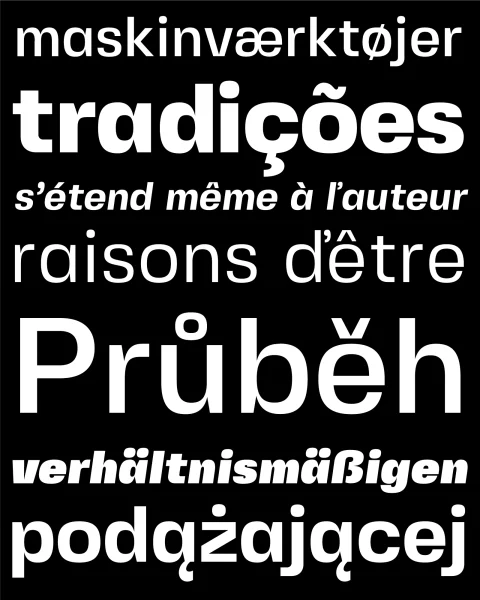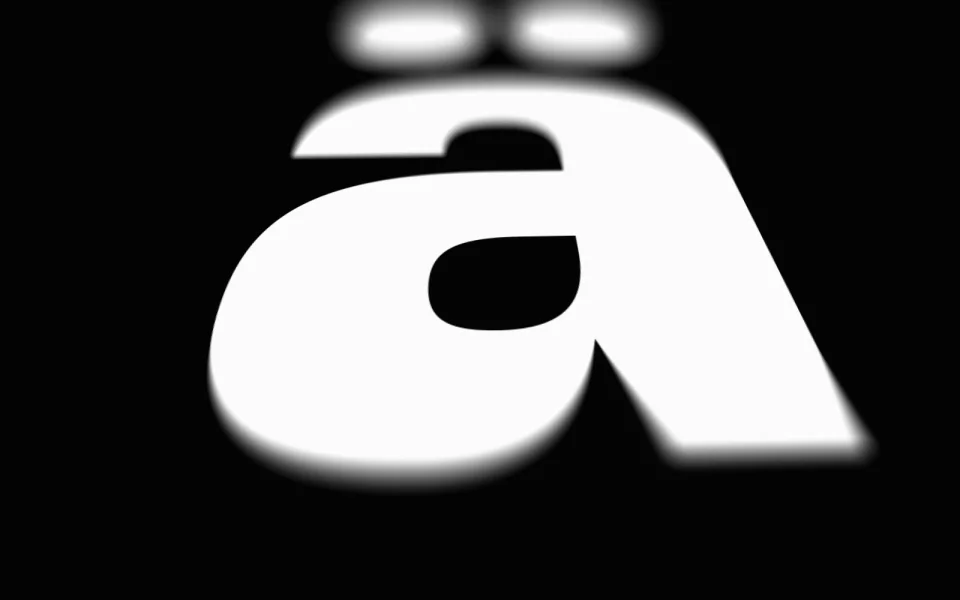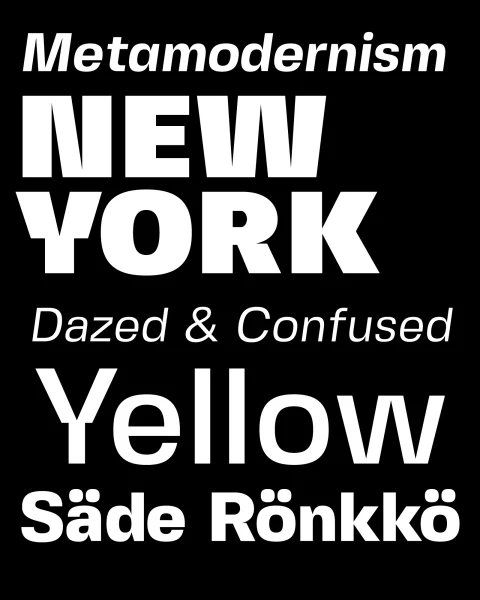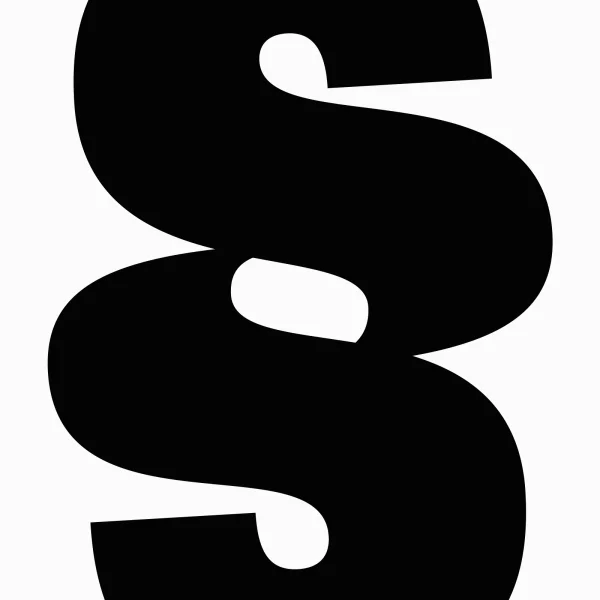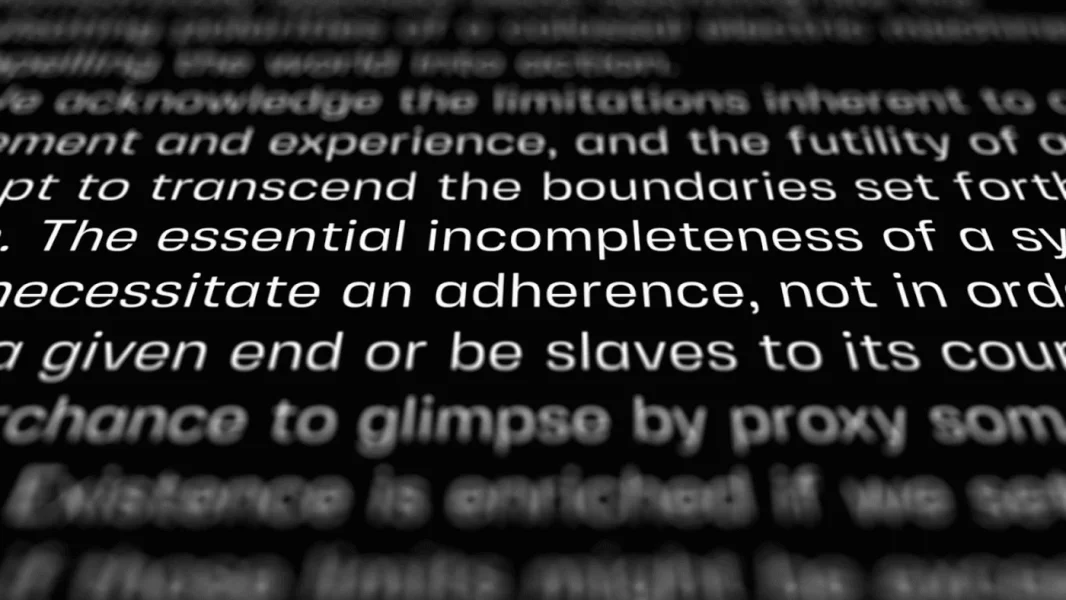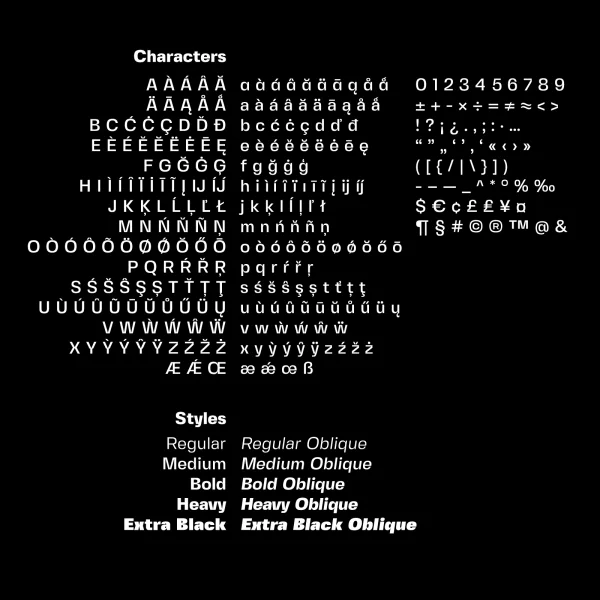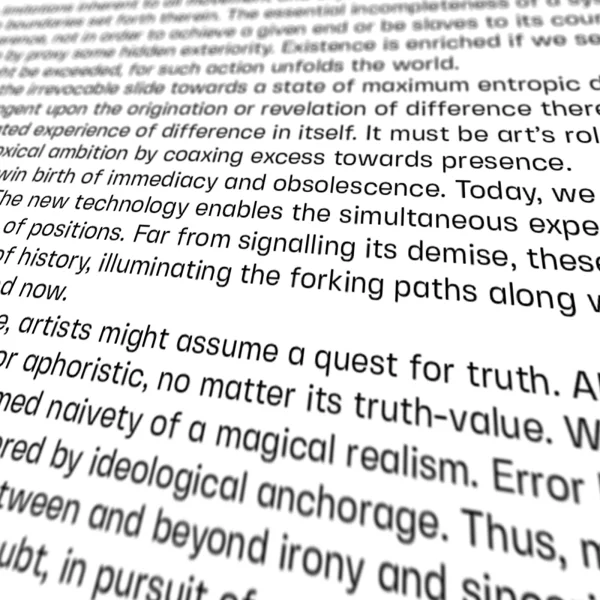
Fivo Sans Modern is an eye-catching display version of Fivo Sans. With its extremely huge ink traps Fivo Sans Modern is good for headlines, posters, logotypes, covers and other cases when you need big heavy letters and nowadays feel. The family includes 5 weights from Regular to Extra Black, Plain and Oblique, 358 characters per weight.